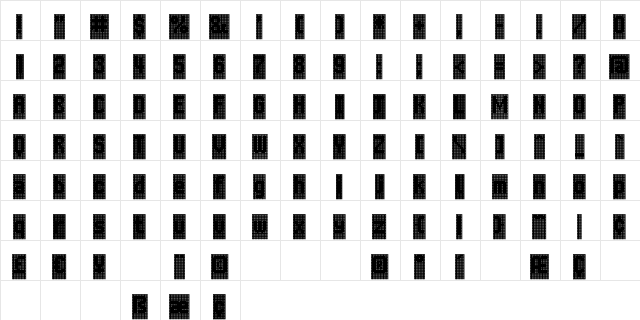
WagesOuter Negative Regular
WagesOuter Negative is a composed and adaptable typeface that performs quietly and consistently across a wide range of design contexts.